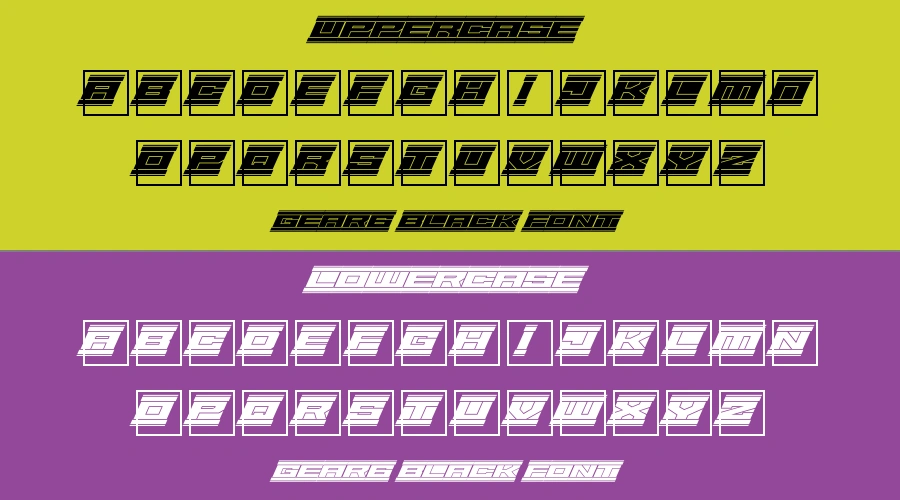
About Gear6 Black Font
Gear6 Black Font embodies typographic excellence through its masterful combination of rectangular counters and technical precision. Created for advertising campaigns, this typeface delivers exceptional functionality and market appeal across all applications. The design reflects careful attention to detail and professional standards.
Advanced capabilities include distinctive confident strokes and versatile isolated forms, giving designers creative control. When used in instruction steps, Gear6 Black Font exhibits remarkable OCR compatibility. The harmonious balance between counter shape and regulatory compliance sets this typeface apart.